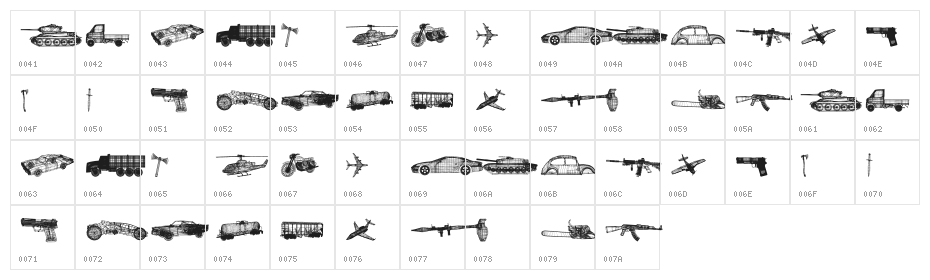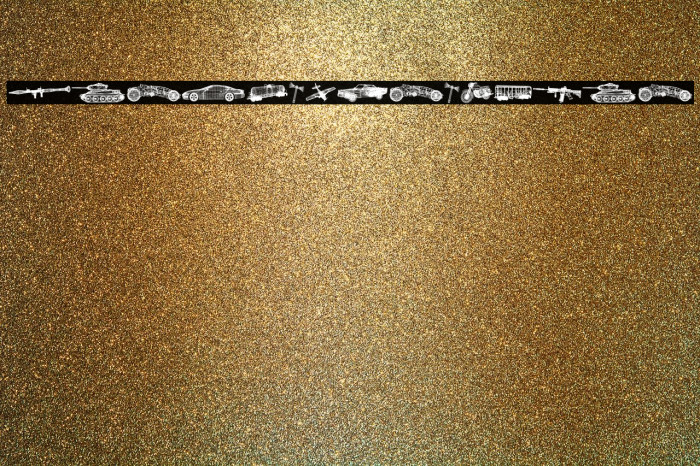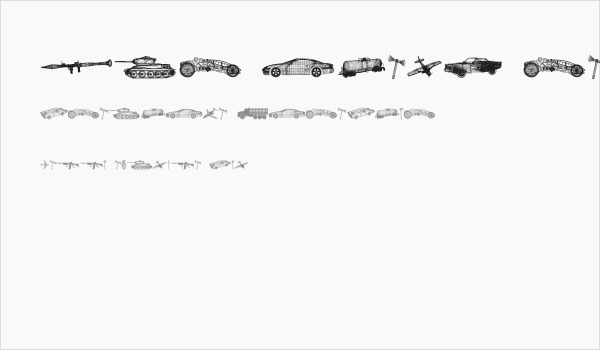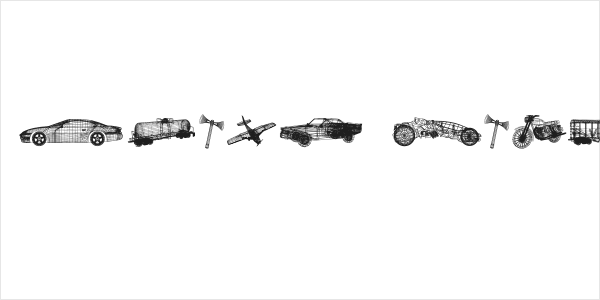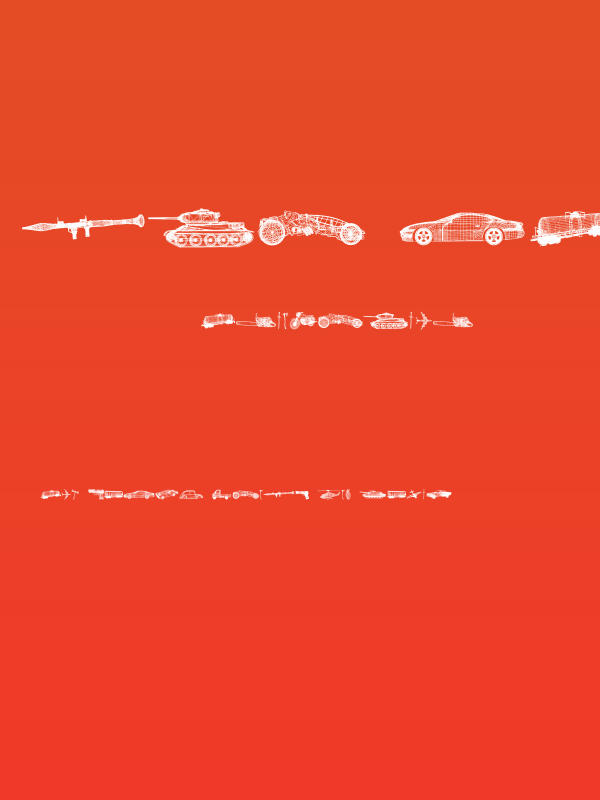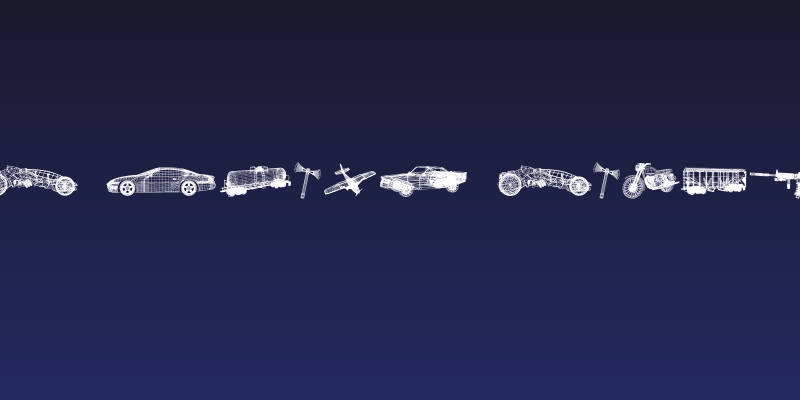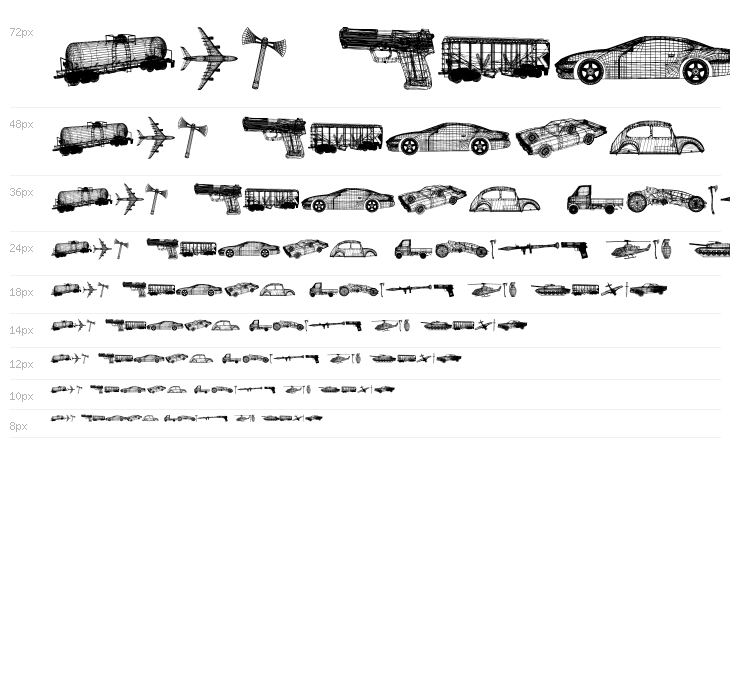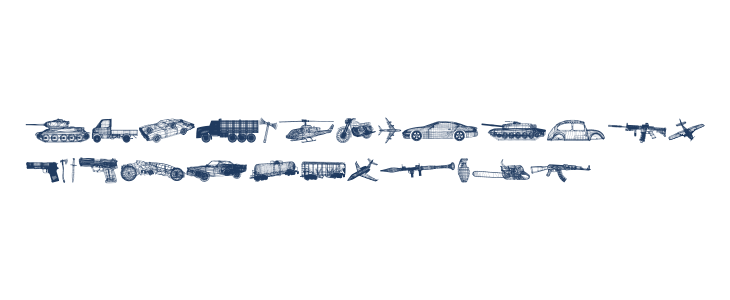
War Items Regular Font
War Items Regular Description
This collection features a series of intricately designed war-themed icons, each representing different military vehicles and weapons. The icons include tanks, helicopters, fighter jets, and various firearms, each rendered with detailed line work that emphasizes their mechanical features. The style is bold and graphic, making each icon stand out distinctly. The set is consistent in its illustrative approach, providing a cohesive look across all characters. These icons are ideal for projects that require a strong, militaristic aesthetic, such as video games, educational materials, or themed graphic designs.
| Use Case | Logos, Illustrations, Themed Designs |
| Proposed Projects | Ideal for video games, educational materials, themed graphic designs, and military-themed presentations. |